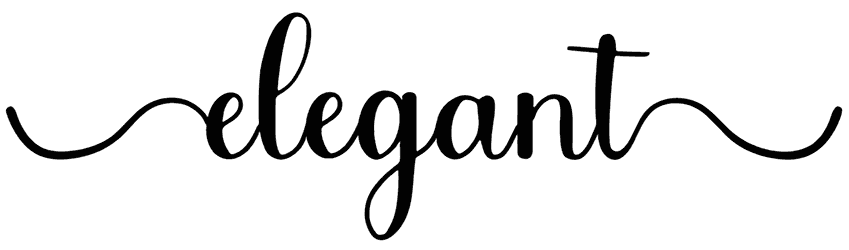
Elegant Font
Designed bySugeng Choirul
You can give your digital works a unique look and feel by using a calligraphy font such as Elegant in your presentation, which will set the right tone. Any project requiring hand-lettering, branding, posters, etc., would benefit from the use of this dream font.